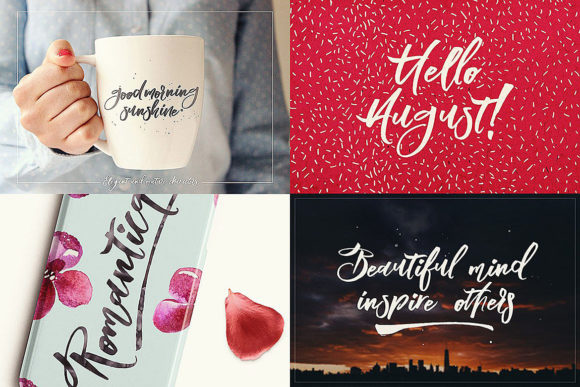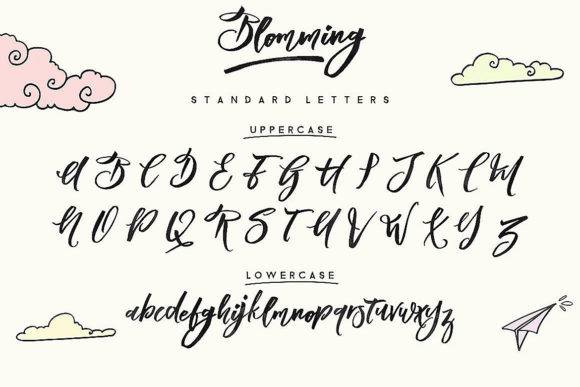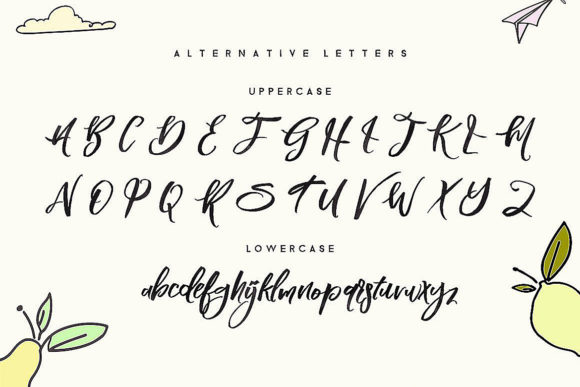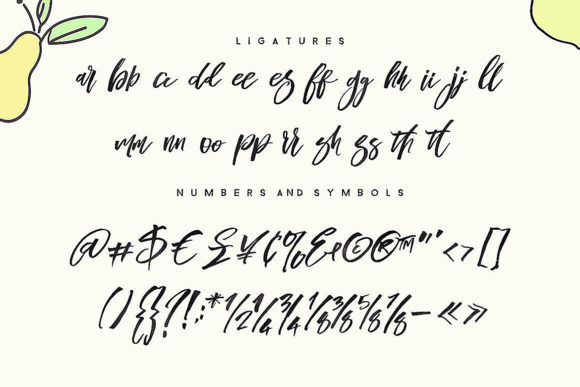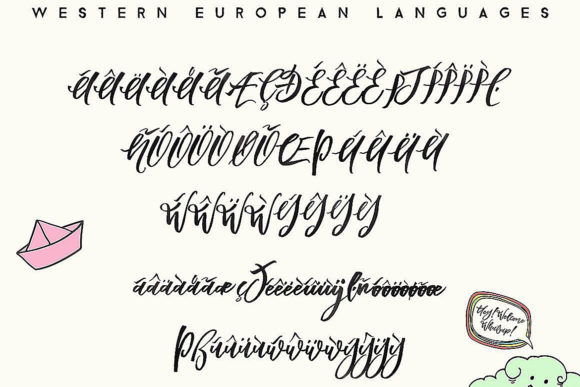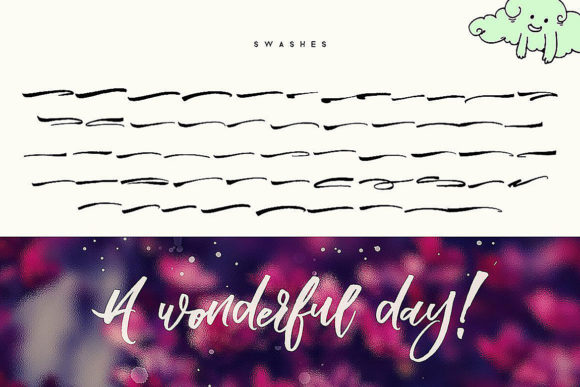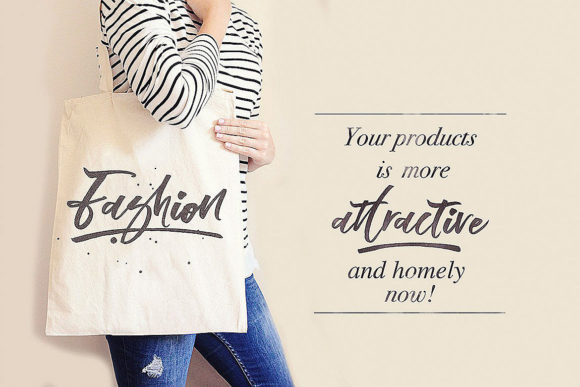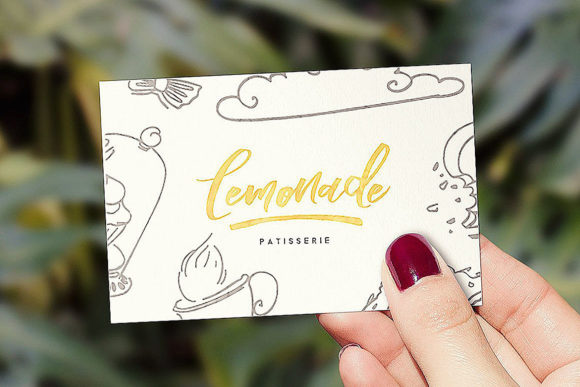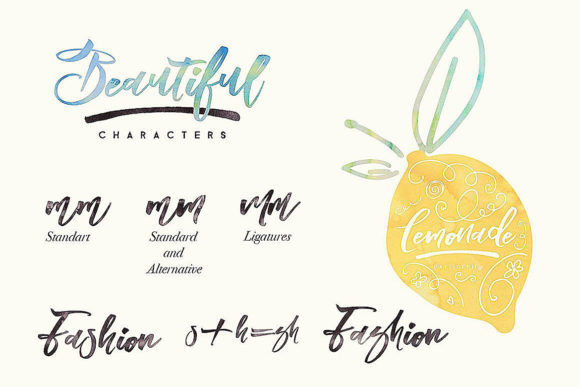
Blomming Font
About Blomming Font
The Blomming is a cool handwritten brush font. It has a great readability and is perfect for grunge and artistic projects.